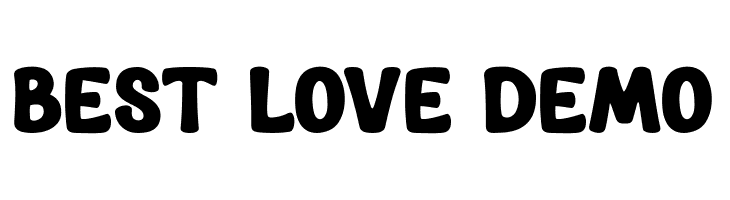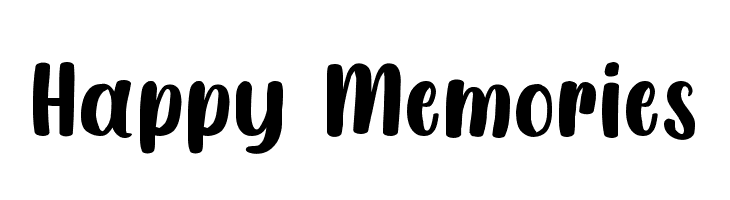
An elegant script font with flowing, interconnected letters and a sophisticated style.
( Fonts by Bluestype Studio )
A playful, bold, handwritten font with a whimsical and inviting style.
( Fonts by Shabaca Designs )
A playful, hand-drawn font with bold, rounded outlines and a whimsical style.
( Fonts by RaisProject )
A playful, farm-themed decorative font with cow motifs and italic styling.
( Fonts by RaisProject )
A playful, cow-themed decorative font with bold, whimsical characters.
( Fonts by Tom Chalky )
A rough, textured serif font with a vintage, handcrafted style.
( Fonts by vilogsign )
A bold, italicized font with thick, rounded strokes and a playful style.
( Fonts by vilogsign )
A bold, playful font with rounded edges and a whimsical style.
( Fonts by Eko Bimantara )
A bold, condensed font with a playful and strong design.
( Fonts by Eko Bimantara )
A bold, playful font with exaggerated curves and thick strokes.